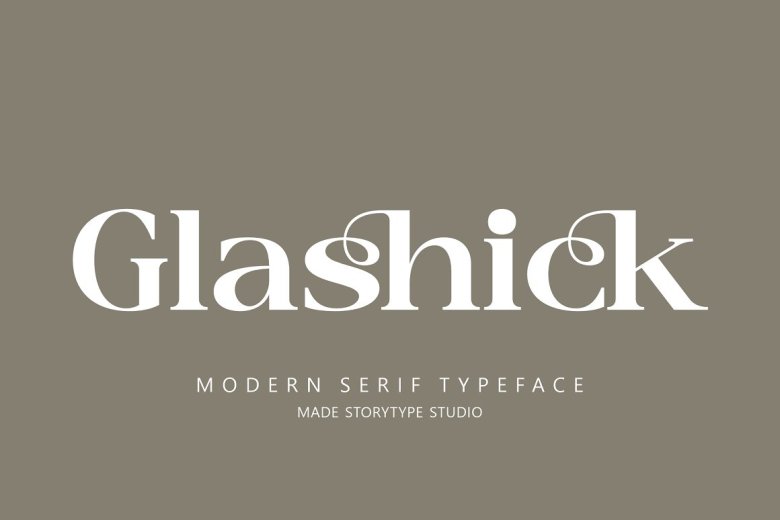
Glashick Font
Glashick is a serif Modern Serif Font with a modern, unique, and exquisite style perfect for images that require a feminine touch for an elegant & luxury logo, book or movie title design, fashion brand, magazine, clothes, lettering, quotes, and more. It’s a PUA encoded font that you can easily access all of the swashes and ligatures.
Glashick Modern Serif Font